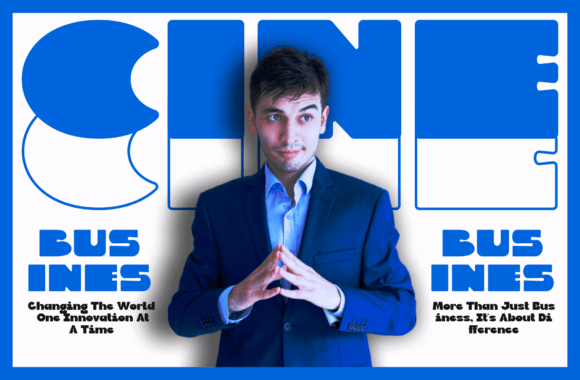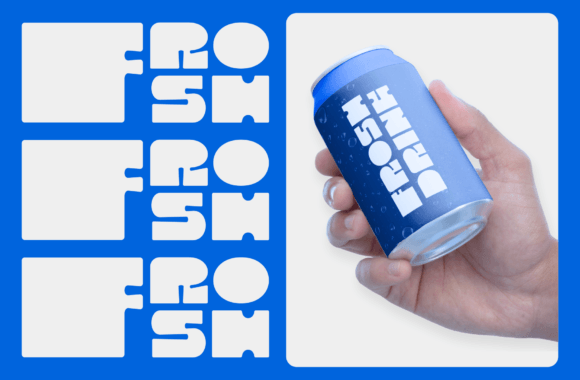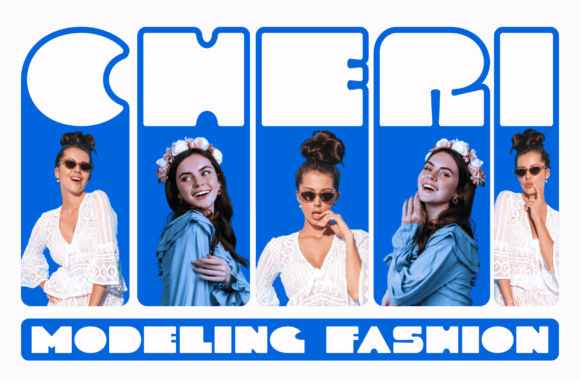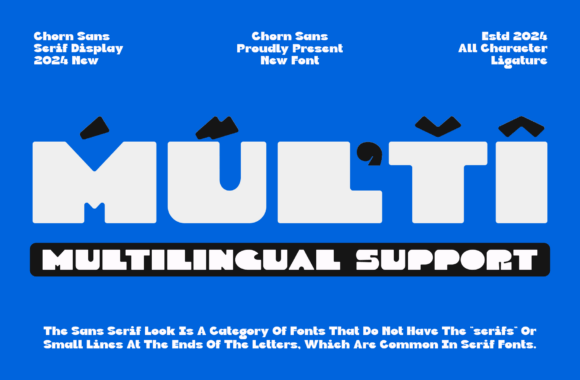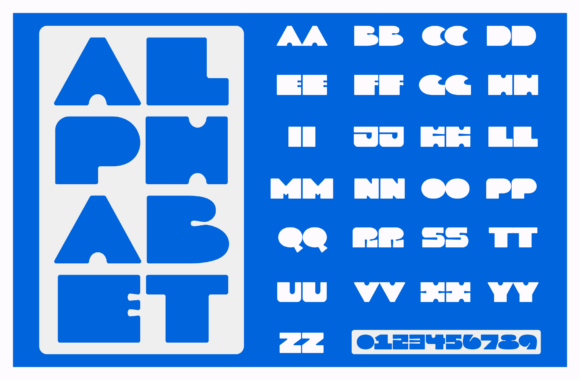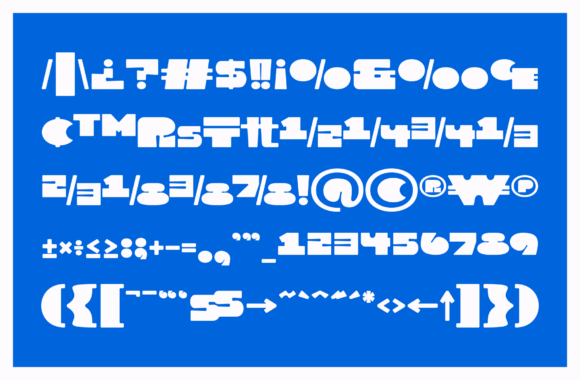
Introduction to Chorn Font
Remember the excitement of designing a project for a client or a friend, and finally, seeing the final product come together? The rush of adrenaline, the satisfaction of a job well done, and the joy of sharing it with others – it’s moments like these that make all the hard work worth it. And, what’s even better, is when you get to add a personal touch to that project, making it truly special and unique. That’s where our new Chorn Font comes in – a Sans Serif Display font that’s sure to bring a smile to your face and a touch of whimsy to your designs.
As a designer, you’re always on the lookout for the perfect font to elevate your creative project. And, let’s be honest, who doesn’t love a free download that can instantly transform a design? Chorn Font is more than just a pretty face; it’s a design resource that’s perfect for projects that require a light, playful, and cheerful atmosphere. With its transparent background and high-quality design, you can be sure that your designs will stand out from the crowd and leave a lasting impression.
Key Features of Chorn Font
- Designed with a modern aesthetic, making it perfect for contemporary design projects.
Honest Review: Chorn Font
As a designer, I’m always on the lookout for high-quality design resources to elevate my creative projects. Recently, I had the chance to work with the Chorn Font, and I’m excited to share my honest review with you.
- Unique and modern design aesthetic that’s perfect for contemporary projects
- Only a limited number of font weights and styles are available
- May not be suitable for projects requiring complex typography or customization
Overall, I was impressed with the Chorn Font’s modern design and ease of use. While it may have some limitations, it’s a solid addition to any designer’s toolkit. If you’re working on a creative project and need a high-quality font, the Chorn Font is definitely worth checking out.
Tips for Getting the Most Out of Chorn Font
To get the most out of Chorn Font, use it with a transparent background to create visually appealing designs. Experiment with different font sizes and colors to create unique and eye-catching text effects.
Chorn Font is a versatile design resource that can be used in a variety of creative projects, including logos, branding materials, and social media graphics. Its high-quality design makes it perfect for use in presentations, posters, and flyers.